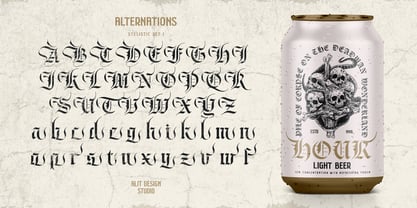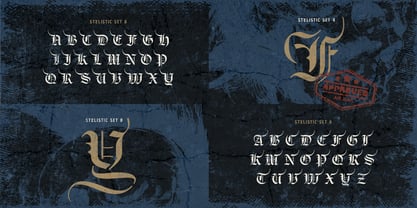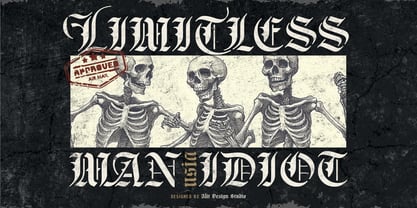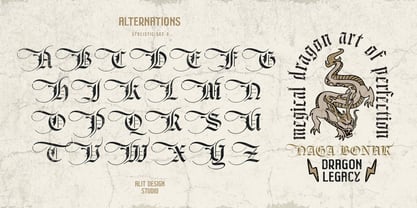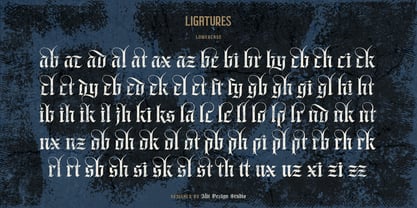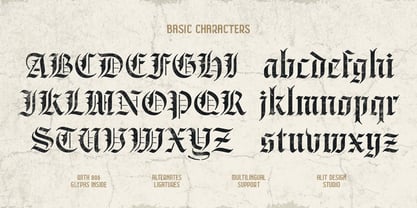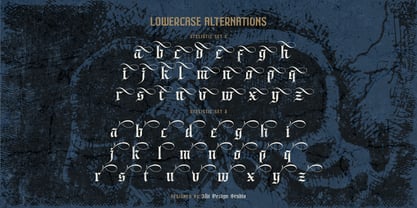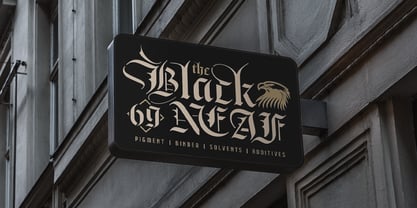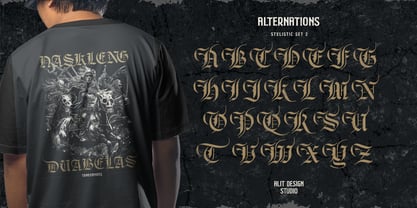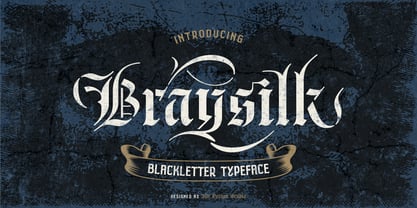
Braysilk
Braysilk – Blackletter Stencil Typeface
Braysilk is a masterfully crafted blackletter stencil typeface that fuses historical gothic influences with a contemporary industrial twist. Designed for those who seek a bold and rebellious aesthetic, this font is ideal for branding, album covers, tattoos, posters, and high-impact visual projects. With its sharp, intricate details and distinct stencil cuts, Braysilk captures the essence of both tradition and modern edge.
910 Glyphs – A massive collection of characters, ensuring full design versatility.
Ligatures – Smooth and natural letter combinations for enhanced readability and flow.
Swashes – Decorative flourishes that add an artistic touch to your text.
Multilingual Support – Covers a broad range of languages, making it adaptable for international projects.
Stencil Cut Design – Adds a raw, industrial aesthetic while maintaining gothic elegance.
High Contrast & Sharp Edges – Perfectly balanced strokes for a striking and powerful look.
Braysilk is a versatile typeface, suitable for both vintage and modern designs. Whether you're working on:
• Branding & Logos – Create an unmistakable identity with gothic-inspired lettering.
• Apparel & Merchandise – Perfect for streetwear, tattoo shops, and rock/metal-themed clothing.
• Posters & Album Covers – Bring a dark, dramatic feel to music and event promotions.
• Editorial & Book Covers – A great choice for fantasy, horror, or medieval-themed publications.
• Signage & Packaging – Give products a historical yet modernized feel.
Braysilk isn't just a font; it's an attitude. It speaks power, rebellion, and sophistication all at once. Whether you’re designing for the metal music scene, high-fashion streetwear, or vintage gothic aesthetics, this typeface will set your work apart.